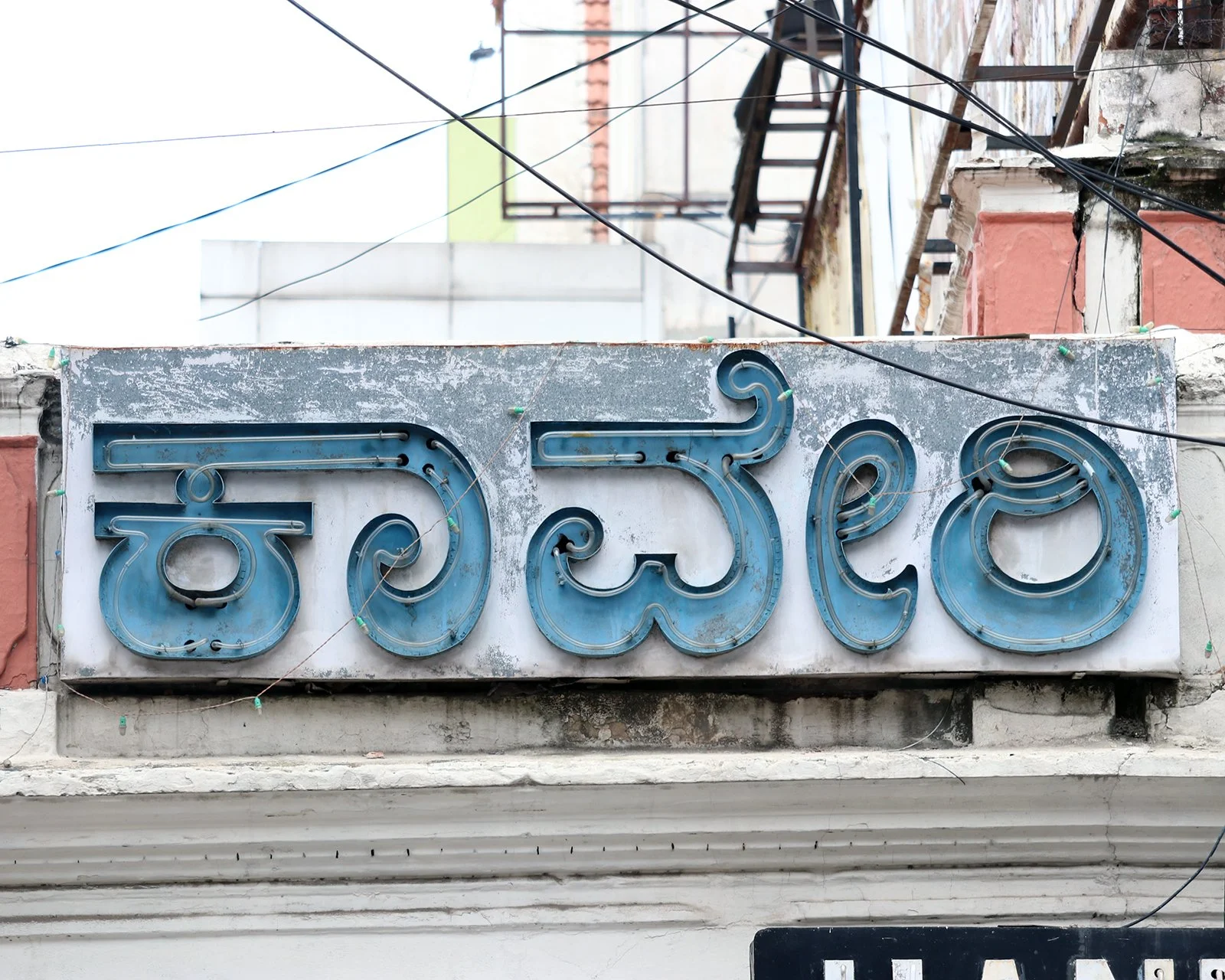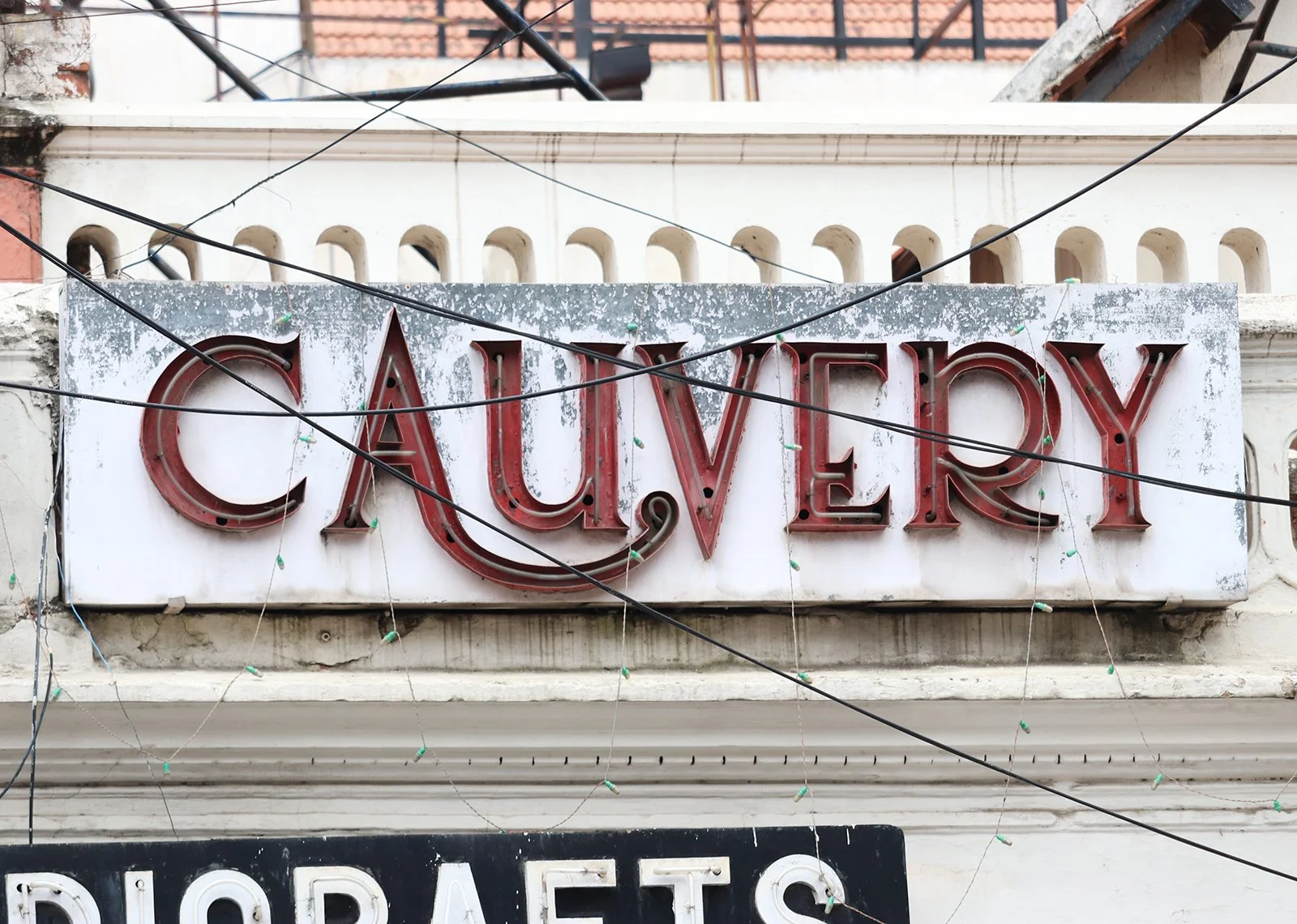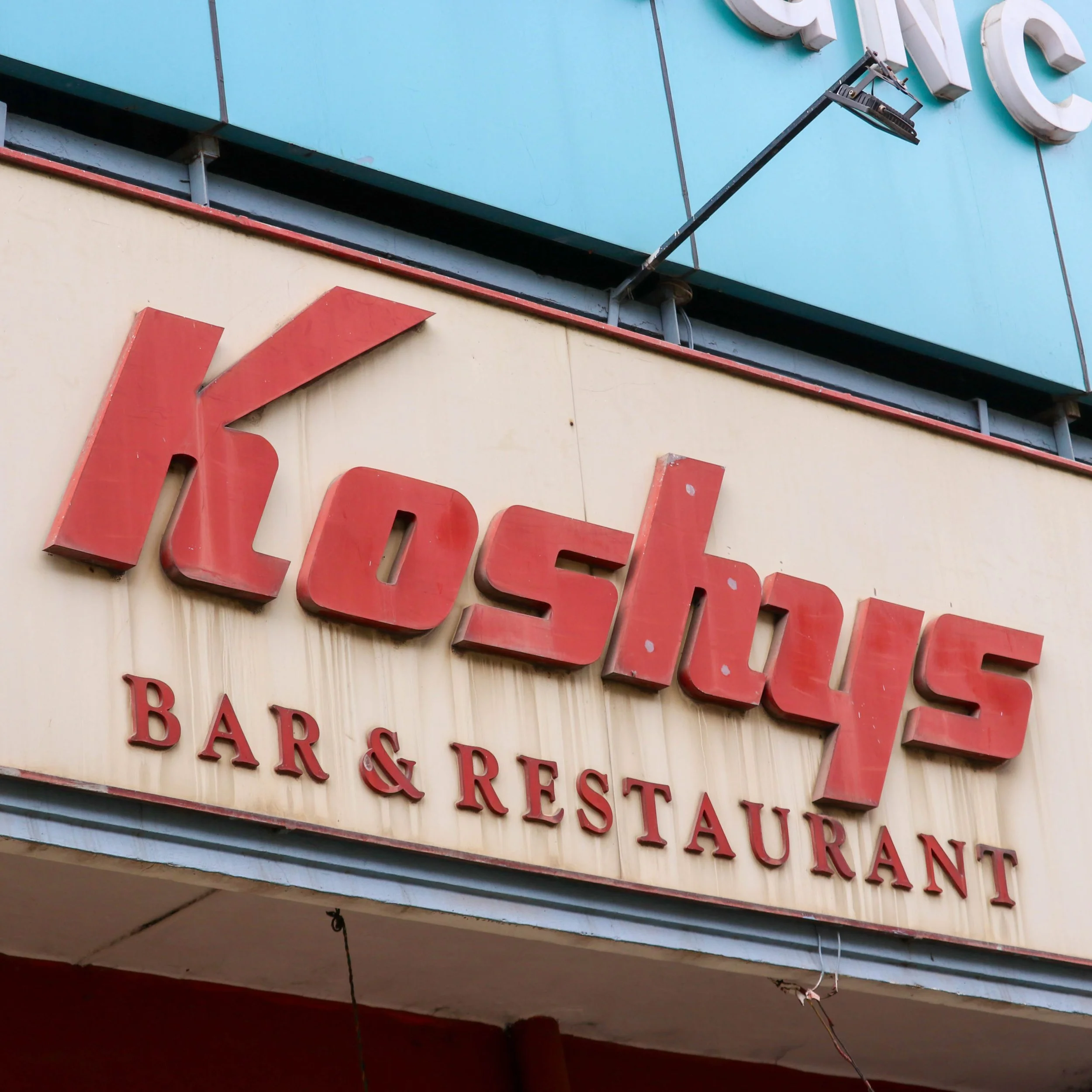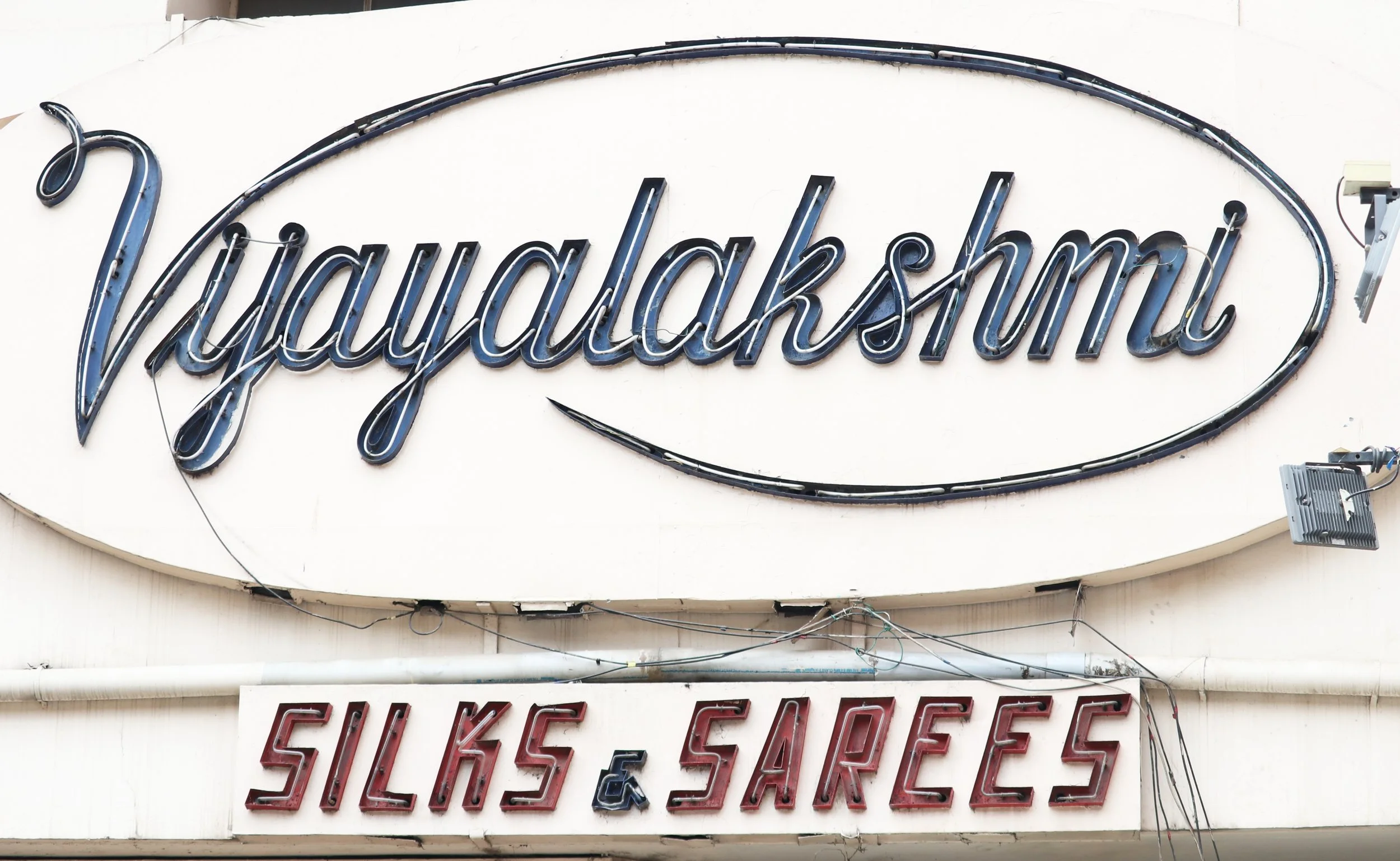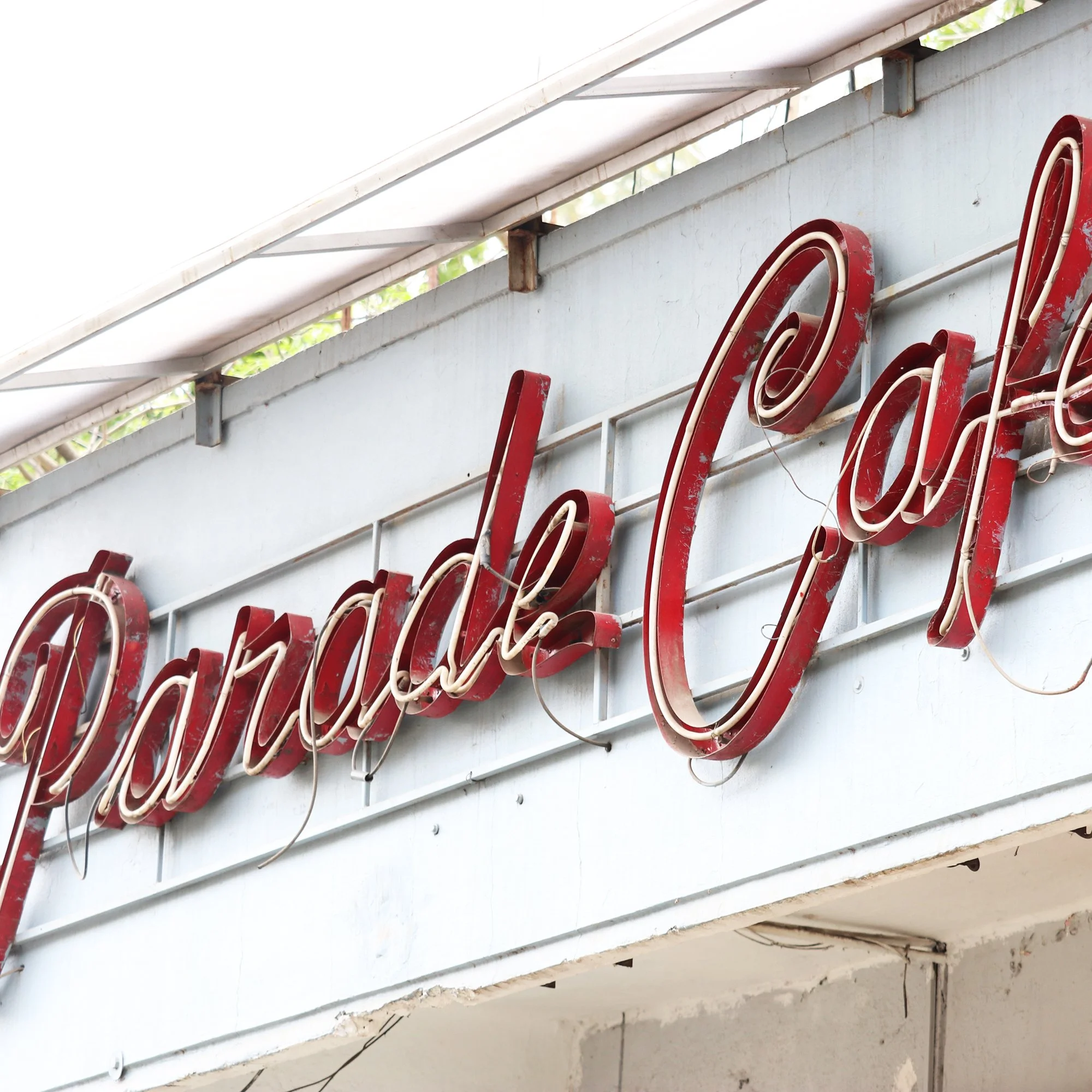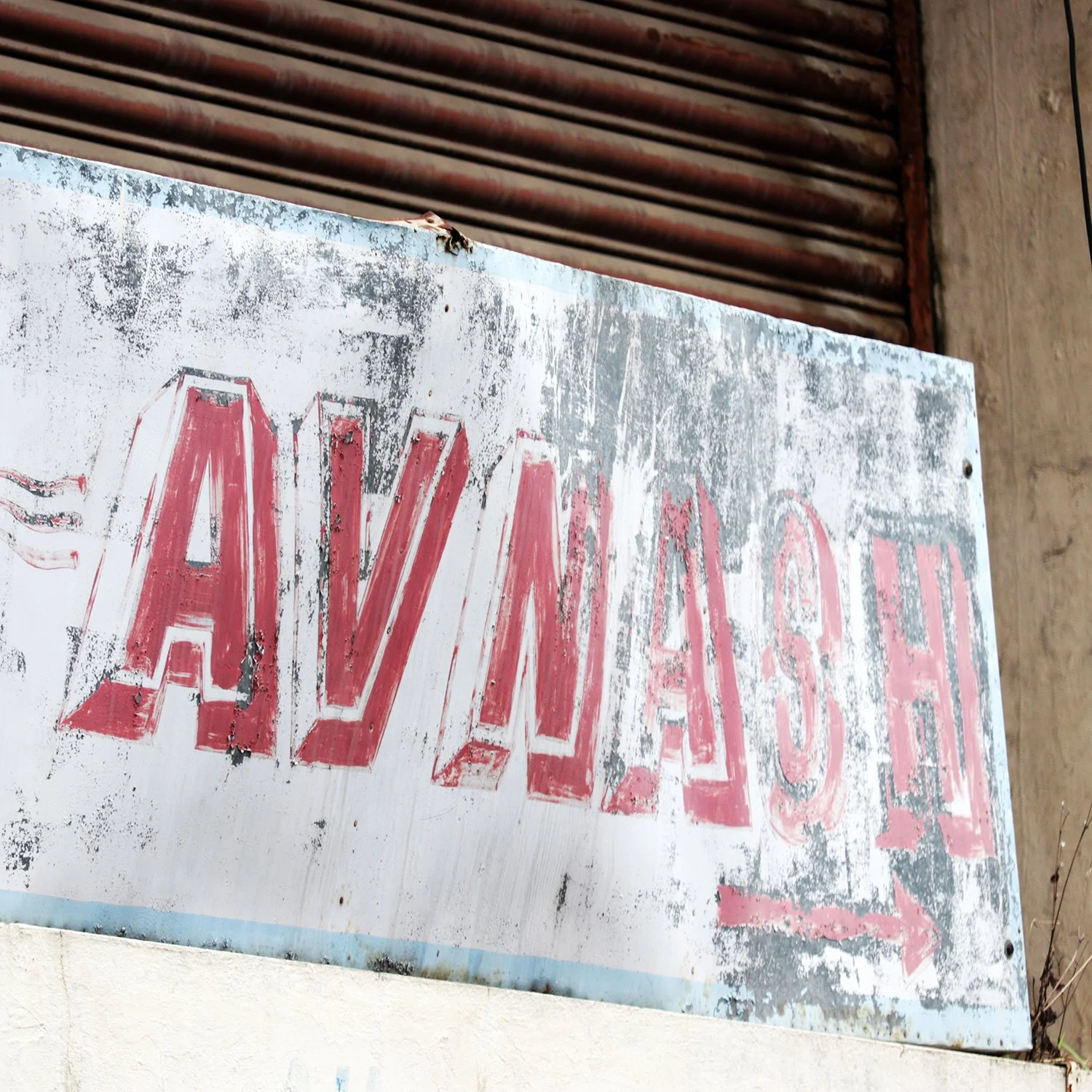
A short film by Pooja Saxena and Harshay Jha that takes you on a typographic tour through Bangalore’s MG Road, illuminating stories hidden behind the letterforms on signages around this bustling neighbourhood.